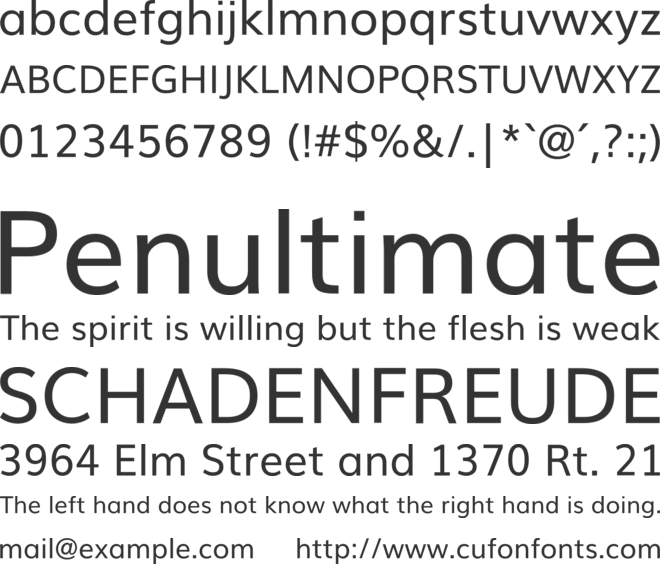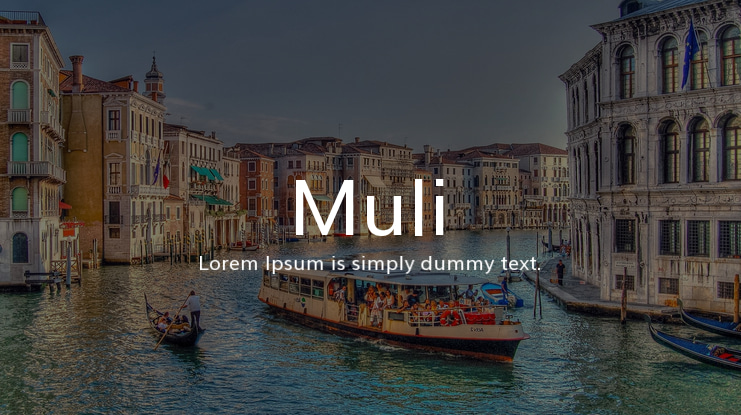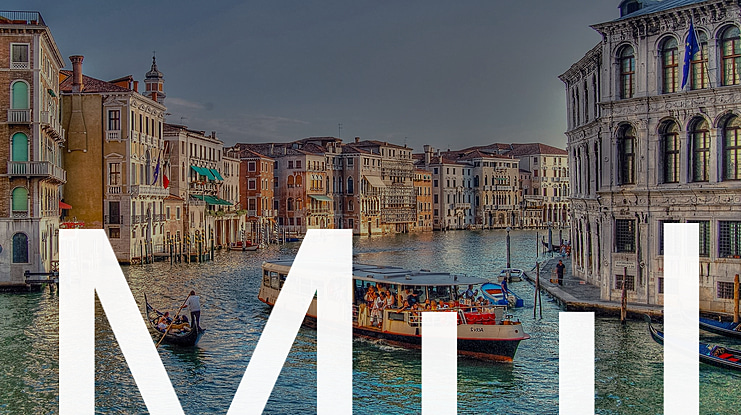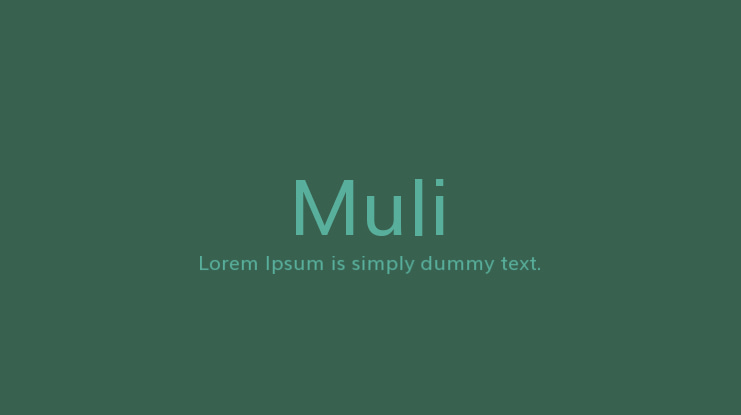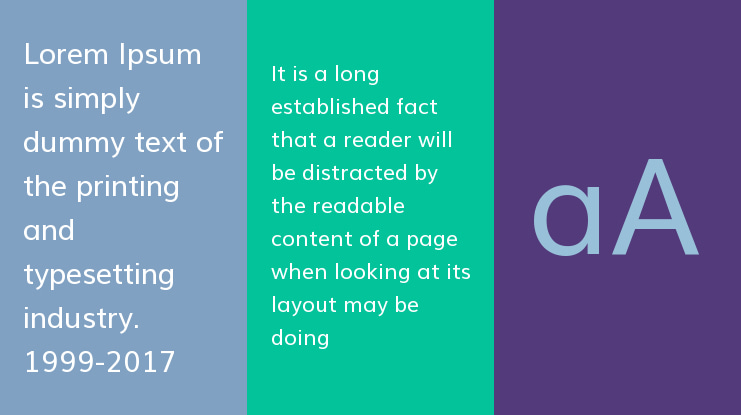
Muli Font Family
Vernon Adams
Muli is a minimalist Sans Serif typeface, designed for both display and text typography.
Since the initial launch in 2011, Muli was updated continually by Vernon Adams until 2014. Vernon added more weights, support for more Latin languages, tightened the spacing and kerning and made many glyph refinements throughout the family based on hundreds of users' feedback. In 2017 the family was updated by Jacques Le Bailly to complete the work started by Vernon after he passed away, in collaboration with his wife Allison, an arist who holds the trademark on the typeface family name. In August 2019, it was updated with a Variable Font "Weight" axis.